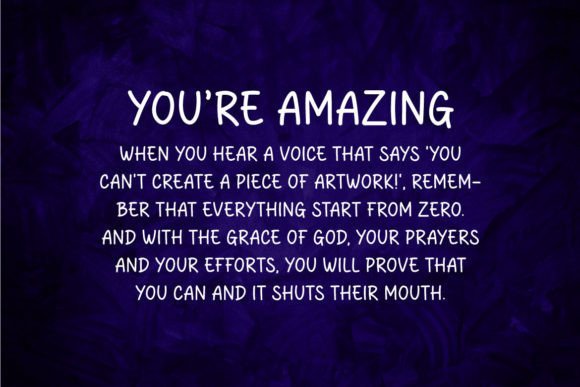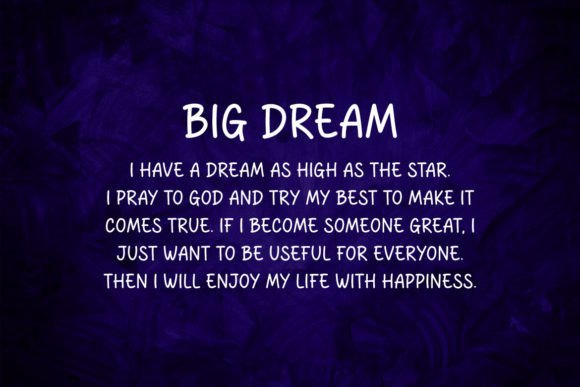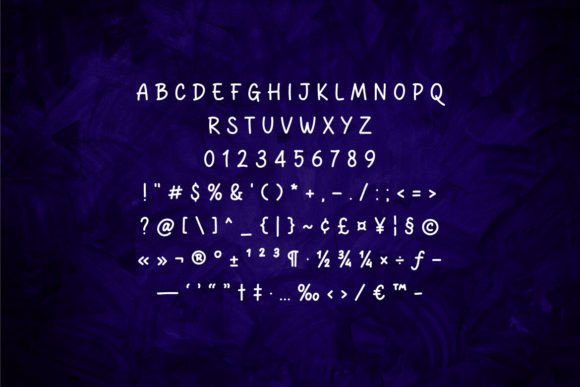
Introduction to King Heksa Font Font
Fonts play a crucial role in design, and the King Heksa Font font is a typeface that brings both character and versatility to any project. Whether you’re working on a branding project, a website, or a print design, the King Heksa Font font offers a unique style that can elevate your work.
King Heksa is a sans serif handwritten font.
King Heksa can be used in any work such as comic books, posters, school, flyers, book titles, advertisements, social media content, logo,s and many more .
Key Features of King Heksa Font Font
Why Choose King Heksa Font Font?
The King Heksa Font font is more than just a typeface – it’s a design tool that helps you communicate your message with style and clarity. Its unique character set and versatile design make it suitable for a wide range of applications, from elegant invitations to bold headlines.
With its carefully crafted letterforms and balanced proportions, the King Heksa Font font ensures readability and visual appeal across all mediums.
What makes King Heksa Font font special?
The King Heksa Font font stands out with its unique design, exceptional readability, and versatility across various design applications.